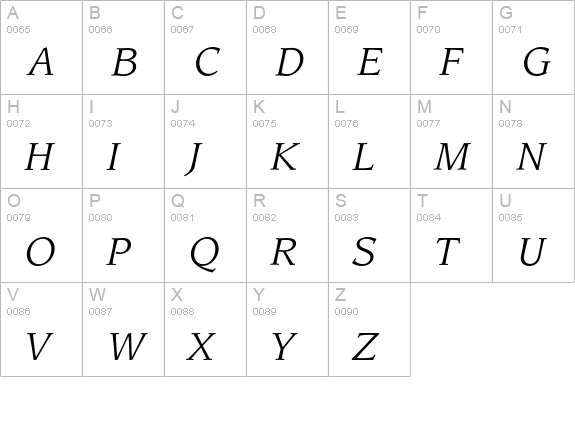
LeawoodEF-BookItalic Font Details
LeawoodEF-BookItalic is a stunningly elegant font that effortlessly combines traditional charm with a modern twist. Its sleek and slanted italic design adds a touch of sophistication and grace to any project or design. With its smooth lines and graceful curves, LeawoodEF-BookItalic is perfect for creating eye-catching headings, titles, and logos that demand attention. Its versatility allows it to be used in a wide range of creative projects, from branding and advertising to invitations and packaging. But here's the best part - LeawoodEF-BookItalic is completely free! Yes, you read that right. This remarkable font is freely available for download at FontsMarket.com. You can now bring your creative visions to life without any cost or restrictions. Whether you're a professional designer looking to add a touch of elegance to your work or a creative enthusiast exploring the world of typography, LeawoodEF-BookItalic is the perfect font for you. Its timeless appeal and freely available nature make it an essential addition to your font collection. Download LeawoodEF-BookItalic today from FontsMarket.com and let your creativity soar to new heights. Unleash the beauty and versatility of this exceptional font and elevate your designs to a whole new level.